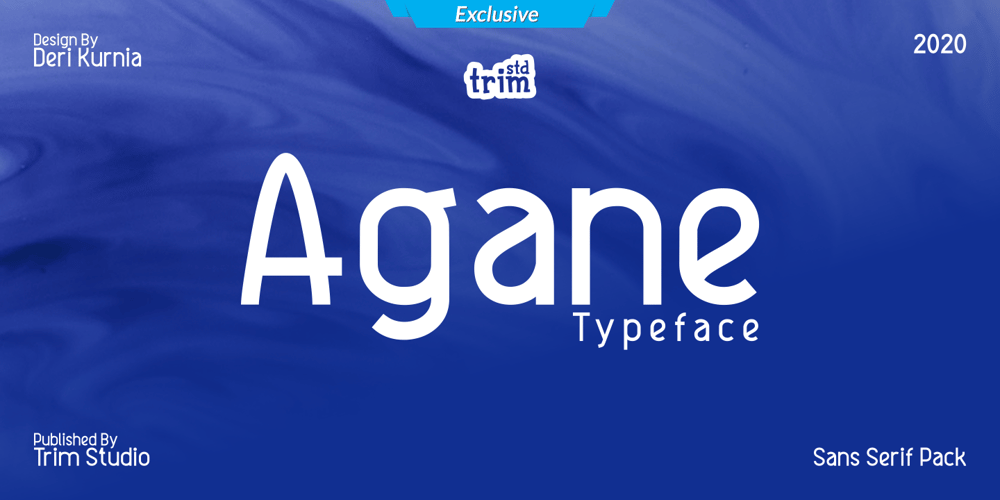
Agane Font Family was designed by Deri Kurnia and published by Trim Studio. Agane contains 6 styles and family package options. Agane is a Basic modern Sans Serif font. Design with oval as main shape, It’s combine the basic sans type with smooth curve in the end, perfectly suited for graphic artists to complete their design such as web design, advertisements, posters, logos, product signs, and many more.Agane contains all standard glyphs and punctuations.